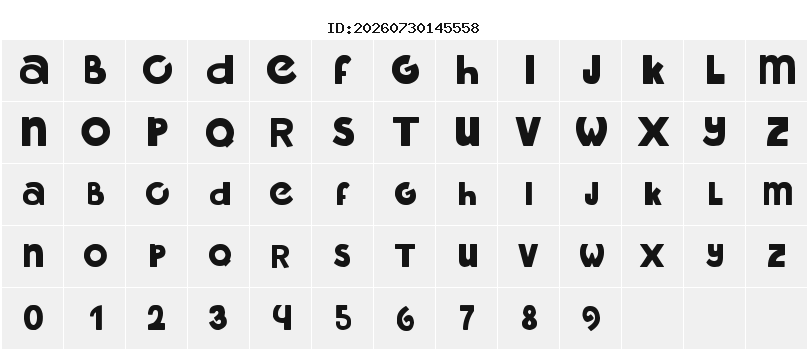
libre Preview
• Font Name: libre
• Font ID: libre:Version 1.00
• Full Font Name: libre
• Version: Version 1.00 April 25, 2009, initial release
• PostScript Name: libre
About libre.ttf
libre.ttf is a modern, elegant sans-serif font designed for ultimate readability and visual harmony. Perfect for branding, headlines, web design, and print materials.